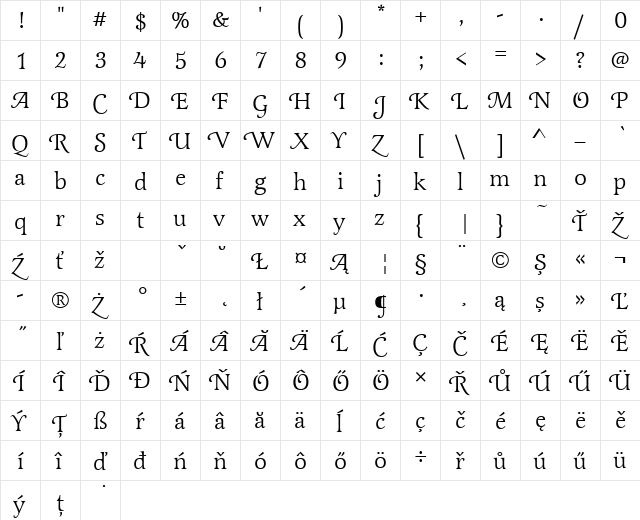
LatienneSwaTEE Regular Font Preview
LatienneSwaTEE Regular
Design Context for LatienneSwaTEE Typeface
LatienneSwaTEE offers clean, dependable letterforms without strong stylistic allegiance, making it a practical choice for designers who need flexibility.